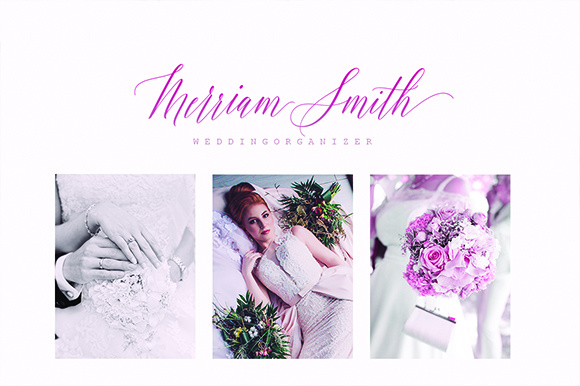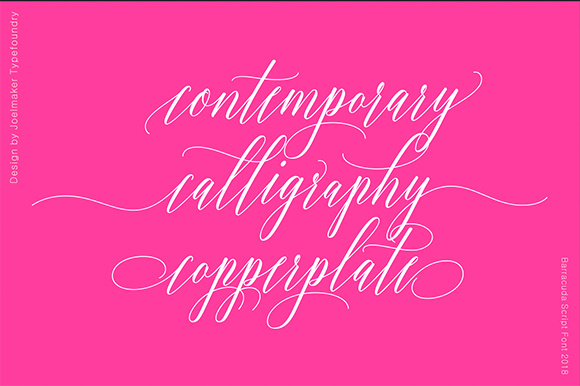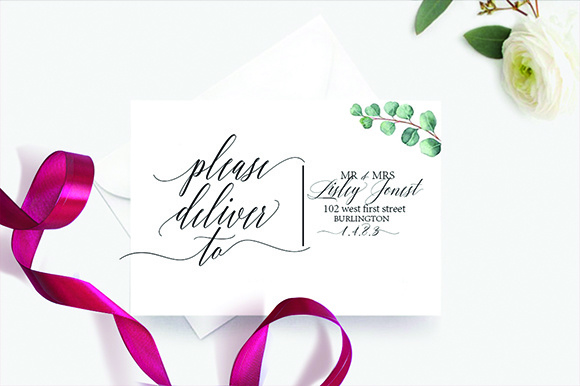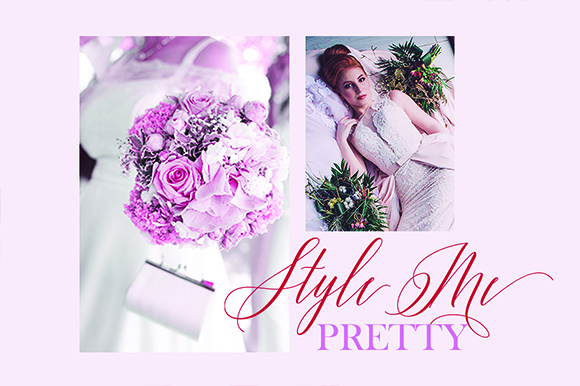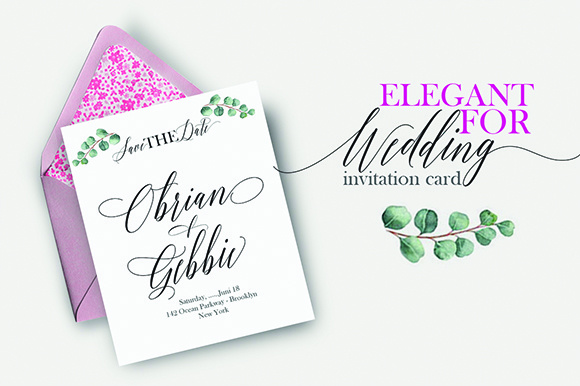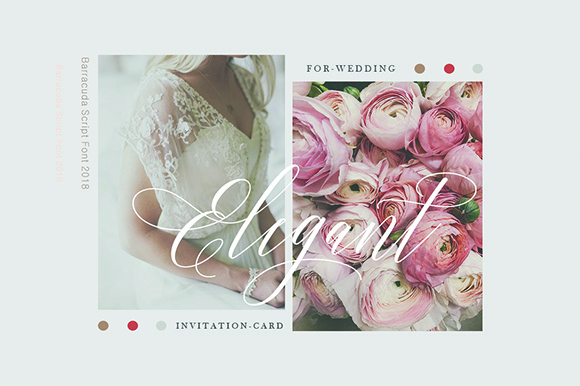
When Words Become Art: Unveiling the Beauty of Handwritten Typography
As a designer, there’s nothing quite like the thrill of finding the perfect font to bring your creative vision to life. For me, it was the moment I stumbled upon the Barracuda Script Font, and I knew I had to have it. There’s something about the elegant, handwritten feel that just screams sophistication and style.
Barracuda Script Font is a modern, handwritten calligraphy typeface that’s perfect for adding a touch of femininity to your designs. From logos to quotes, invitations to signatures, this font is the ultimate go-to for any designer looking to add a little extra flair to their work. And with its versatility and timelessness, it’s no wonder why Barracuda Script Font is a valuable asset for any design toolkit.
- Unique Characteristics: Barracuda Script Font features a unique, handwritten style with varying line widths and irregularities, giving it a personal and creative touch.
- Legibility: Despite its script style, the font remains highly legible, making it suitable for body text, titles, and even signage.
Barracuda Script Font Review
Overall, I think the Barracuda Script Font has some great qualities that make it a unique and stylish addition to any design project. ✨
- Unique flair: This font has a distinctive, handwritten feel that sets it apart from other script fonts.
- Elegant aesthetic: The elegant lines and flowing curves give it a sophisticated and refined look.
- Highly legible: Despite its script nature, the font is surprisingly easy to read, making it suitable for a wide range of applications.
However, there are some limitations to consider. ⚠️
- Limited font weights: The font only comes in a few weights, which may not be suitable for all design needs.
- Lack of italics: The font doesn’t have italics, which may be a drawback for designers who want to add emphasis or create a sense of drama.
- May not be suitable for small text: Due to its script nature, the font may not be ideal for small text sizes, where clarity and readability become a priority.
Overall, I think the Barracuda Script Font is a great choice for designers who want to add a touch of elegance and sophistication to their projects. While it may have some limitations, its unique flair and highly legible nature make it a worthwhile addition to any design toolbox.
Getting the Most Out of the Barracuda Script Font
For the best results, use the Barracuda Script Font in combination with bold or italic text to add emphasis.
Use the Barracuda Script Font for headings or titles to create a sense of drama and flair.
The Barracuda Script Font is perfect for:
Restaurant menus and signage
Event promotions and marketing materials